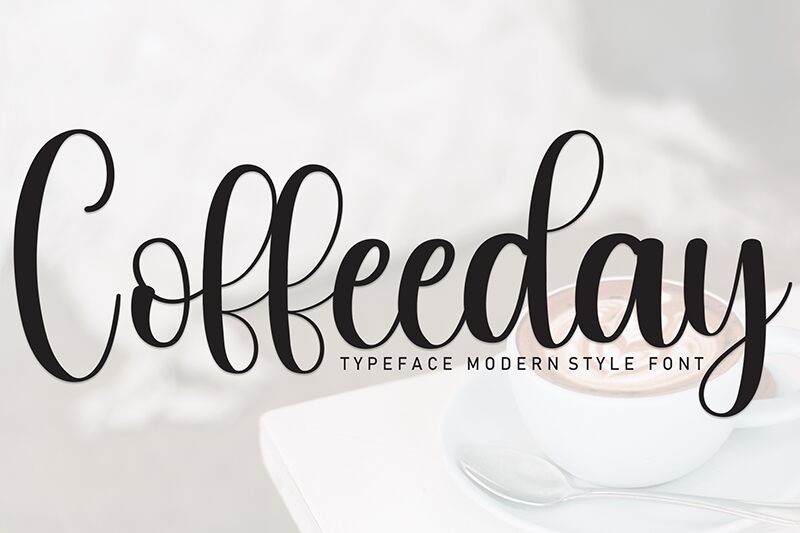
Coffeeday
Coffeeday font by Andi Moz is an elegant calligraphy font with a sophisticated, modern script. The flowing design gives it a graceful appearance, suitable for a wide range of projects from branding or invitations to packaging designs.